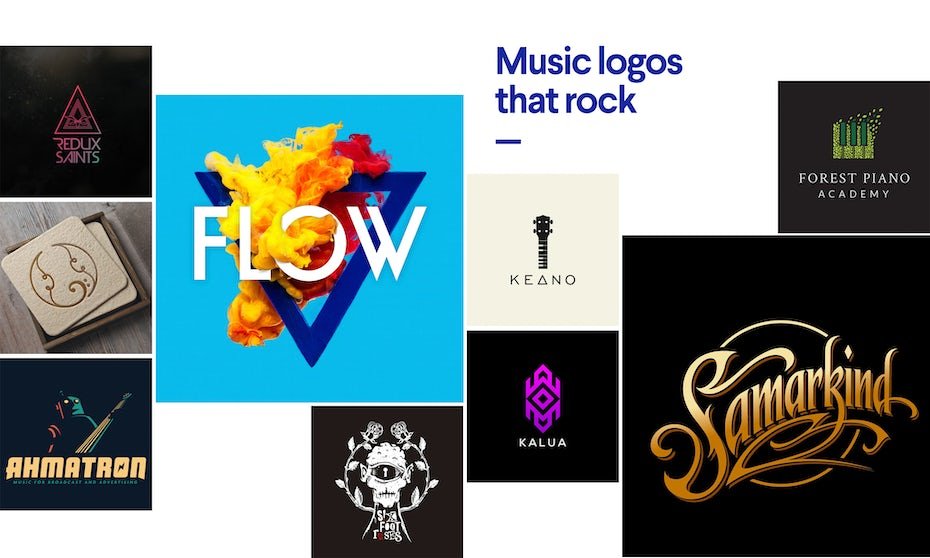
Music and design go hand in hand. Both are powerful tools of self-expression that influence moods, define styles, incite mass movements, teach us about ourselves, our culture, and give birth to subcultures. Historically, designers and musicians have always come together to amplify messages in their music—from album cover art, logo identity, tour posters, merch design and more.
Whether you’re a music artist or a small business looking to put yourself out there and share your unique offering with the world, the right design can make all the difference. But how do you choose which music logo design style is right for your brand? Let’s take a closer look at these seven definitive design styles commonly used in the music industry.
The top 7 music logo design styles
- Punk rebellious
- Retro nostalgic
- Urban street graffiti
- Sound and instrument icons
- Wordmark and custom typefaces
- Futuristic
- Mascots
Punk rebellious
From metal-heads, grunge-rockers, “outlaw” country, mosh pits and crowd surfing, the music industry will always have a place for protest and rebellion. Over time, designers have found a variety of techniques to illustrate this anarchistic energy. This can include the use of worn and distressed textures juxtaposed against bright colors, suitable for conveying bold impressions and nonconformity. Other techniques include the use of edgy symbolism such as skulls and bones. This style pairs well with punk rock, metalcore or hardcore punk music genres.
Retro nostalgic
Retro designs bring together artistic styles from past decades like Art Deco, Art Nouveau, Bauhaus and Mid-century modern for example. Visual characteristics include badges, crests, muted or bright colors, geometric shapes, grainy textures and hand-drawn lettering. Retro designs are popular among musicians because they can evoke nostalgia for a certain era or time period. For example, retro designs can be used to channel ‘50s rockabilly, ‘60s psychedelic rock music or Southern bluegrass.
Urban street graffiti
The urban street design style is all about graffiti lettering and character illustration, bold colors and hand-drawn fonts aka “handstyles” or “tagging.” This style is most commonly associated with hip-hop culture. Street graffiti designs often feature abstract shapes with lots of movement that visually tell a story. Custom lettering is a cross between calligraphy and cursive, often having the texture of a brush marker or spray paint. This style can be used on everything street culture-esque from t-shirts, hats, skateboard decks or even album covers if you want something truly unique and eye-catching.
Sound and instrument icons
Like all industries, the music world has its fair share of traditional companies and organizations that need to present a sense of professionalism in their branding. One common technique is to combine a musical element with formal typography. Even better if you can use a common industry image—like a guitar or vinyl record—and transform it into something clever or unique.
Sound and instruments are the very foundation of all music. Instantly recognizable shapes like the piano, speakers or turntables capture the essence of musical genres such as rock, hip-hop, jazz or country. When used strategically in logos, instruments can convey expertise and trustworthiness. This style is perfect for music schools, festivals, record shops or instrumentation and equipment retail stores.
Wordmark and custom typefaces
A wordmark is simply a text-based logo that does not contain a separate icon or mascot. Wordmarks are the most popular choice for music artists because of their versatility. This style pairs well with any genre of music. Wordmark logos are memorable and powerful, relying heavily on typography and minimalism for effectiveness. The chosen font and colors for a wordmark logo can communicate a myriad of different impressions—playful, futuristic, avant-garde, cultural, soulful and energetic for example. Since these logos contain only text, they can be easily scaled up or down without losing legibility—making them perfect for use across all kinds of media platforms.
Futuristic
—
Music is intrinsically tied to math and geometry, making the two a perfect pairing. Additionally, the digital age has brought a new face to the world of music. Electronic sounds fill our world more than ever and it’s come with a particular design aesthetic as well. Futuristic designs draw inspiration from science fiction and space exploration in order to create something truly unique. This type of style features sharp lines combined with clean shapes in order to evoke feelings of modernity and it works best when paired with electronic dance music or ambient soundscapes.
Mascots
—
Last but not least we have mascot styles; these types of logos use cartoonish illustrations based on animals or symbols in order to represent certain concepts or feelings associated with the brand being represented by the logo. Mascot logos work best when paired with upbeat musical styles like pop music or EDM but can also be used successfully with other genres depending on their execution.
Now get out there and jam
—
When choosing a look for your brand, you need to ask yourself what type of design style mirrors your personality and sound. No matter what type of music you create or what kind of project you’re working on, there’s sure to be a design style that fits your vision perfectly. From retro to street graffiti to punk, each music logo design style brings its own unique energy that will help you stand out from the crowd.
Whether you’re a music artist looking for something fresh for your next gig or album cover, or a small business wanting something fun for your storefront, exploring these seven design styles can help take your career or business to the next level. Don’t be afraid to experiment until you find just the right fit!